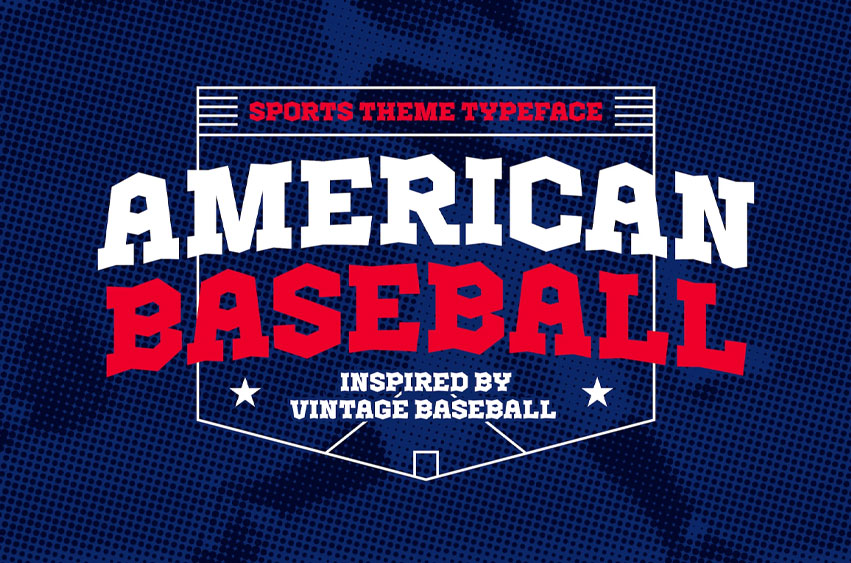
American Baseball Font
American Baseball Font is a heavy display typeface designed for bold branding and nostalgic impact. Heavily influenced by vintage American baseball design, its chunky slab structures and sharp, energetic curves make it a powerhouse for authentic retro identities.
Whether it’s anchoring a bold logo, shouting across a promotional poster, or laying down authority in a vintage-inspired apparel line, American Baseball brings a classic, high-energy spirit to every design. It thrives in high-impact layouts where heritage and bold character matter—and subtlety takes a back seat.